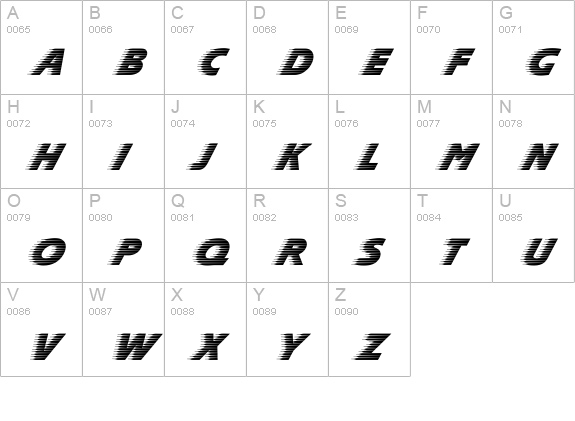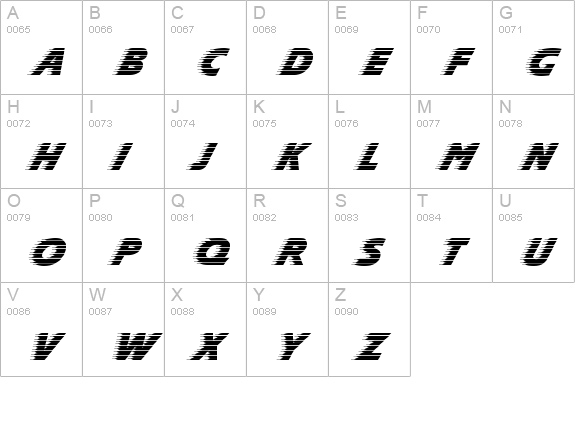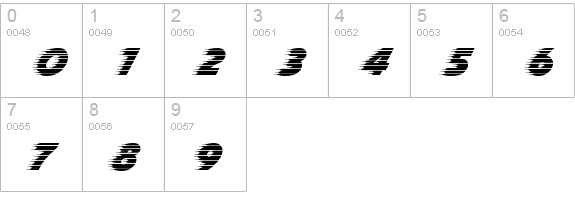
Introducing the exquisite Surface font - a modern and elegant typeface that effortlessly captures attention with its sleek lines and sophisticated design. This versatile font is perfect for a wide range of design projects, from branding to editorial layouts. What sets Surface font apart is not just its striking appearance, but also the fact that it is completely free to download. Yes, you read that right - this premium font can be yours at no cost! Simply visit FontsMarket.com to access this gem and elevate your designs with its unique charm and style. Whether you're working on a logo, website, poster, or any other creative project, Surface font is sure to make a lasting impression. Download it today and unleash your creativity with this exceptional typeface.